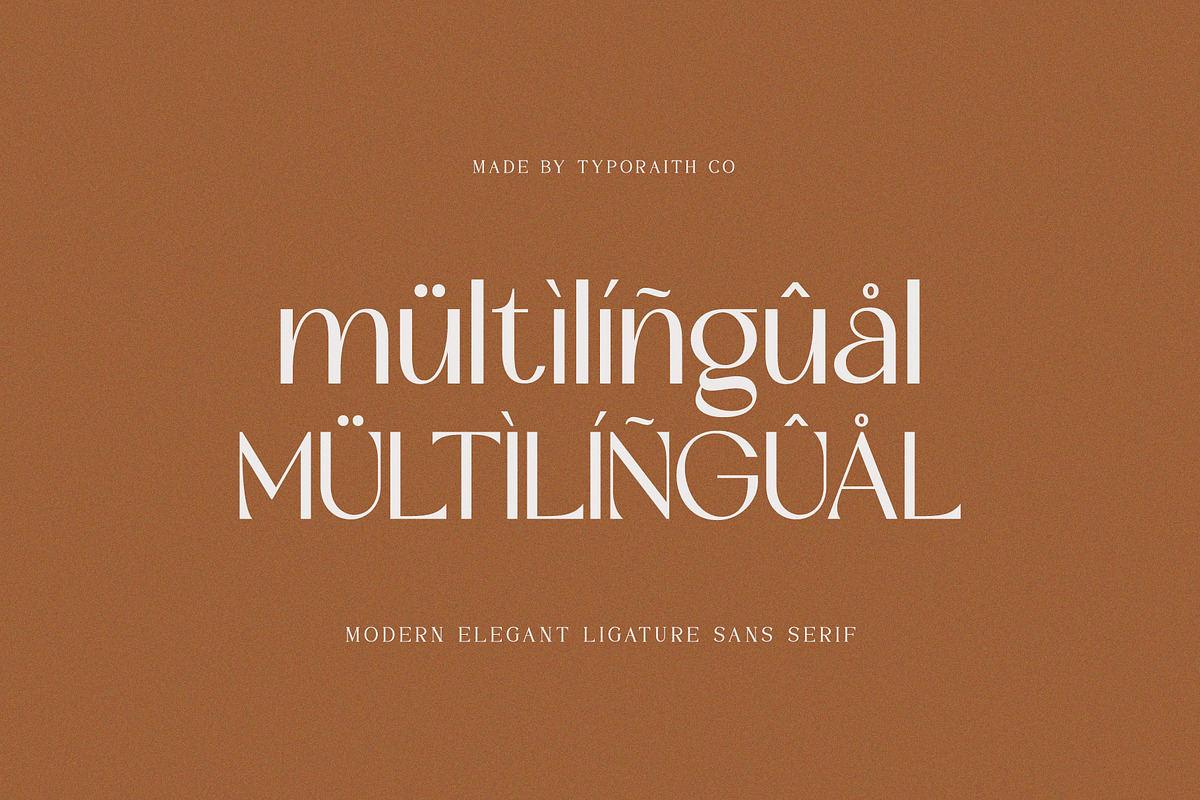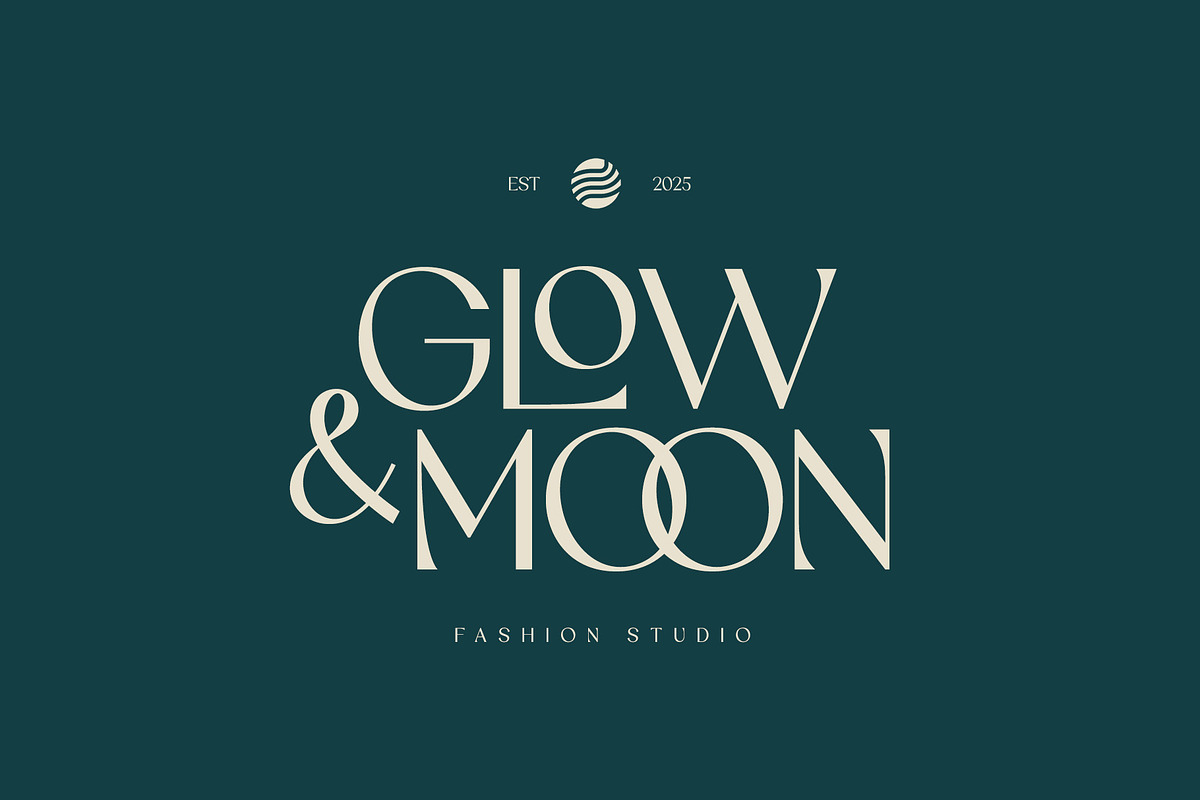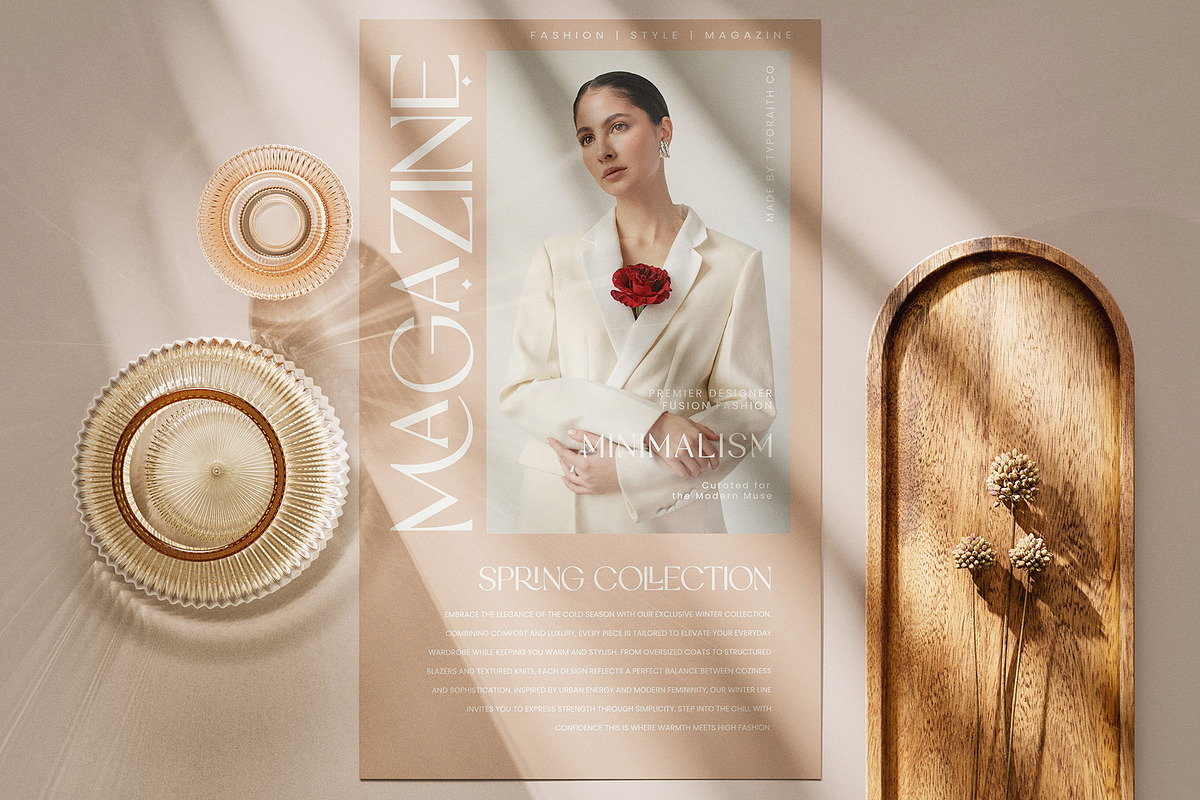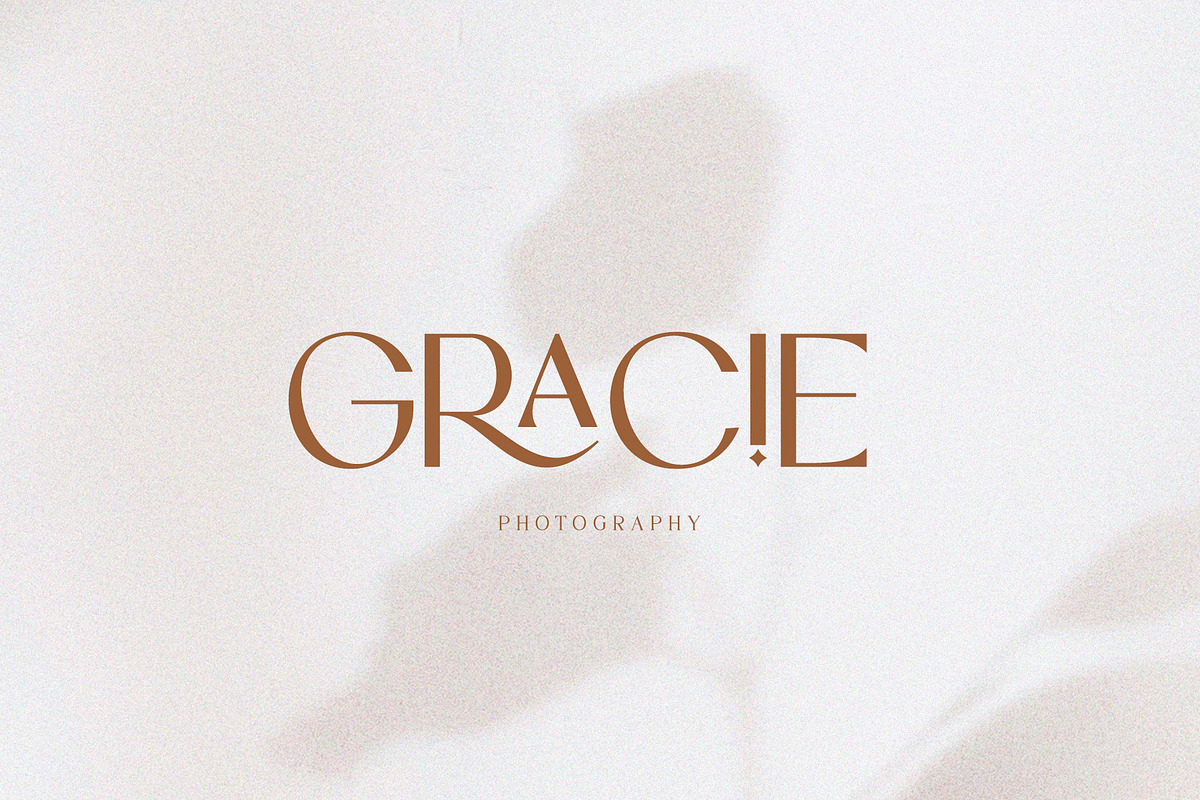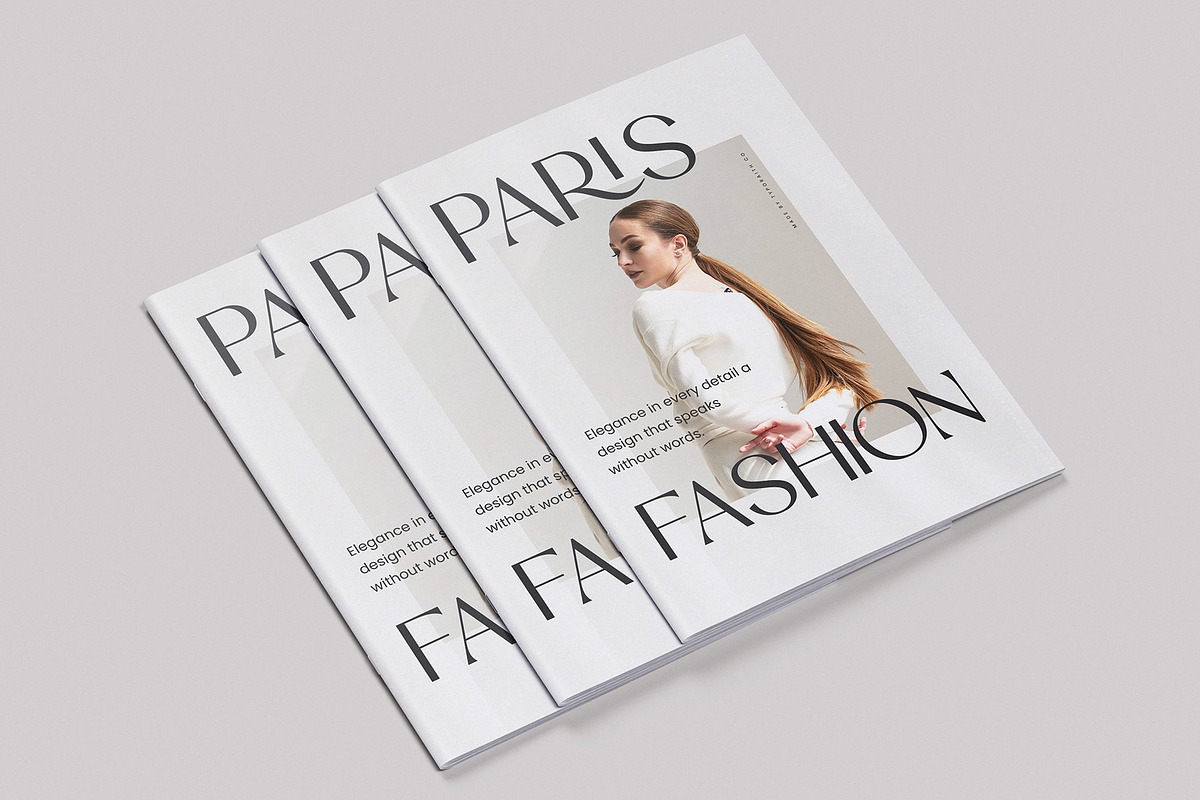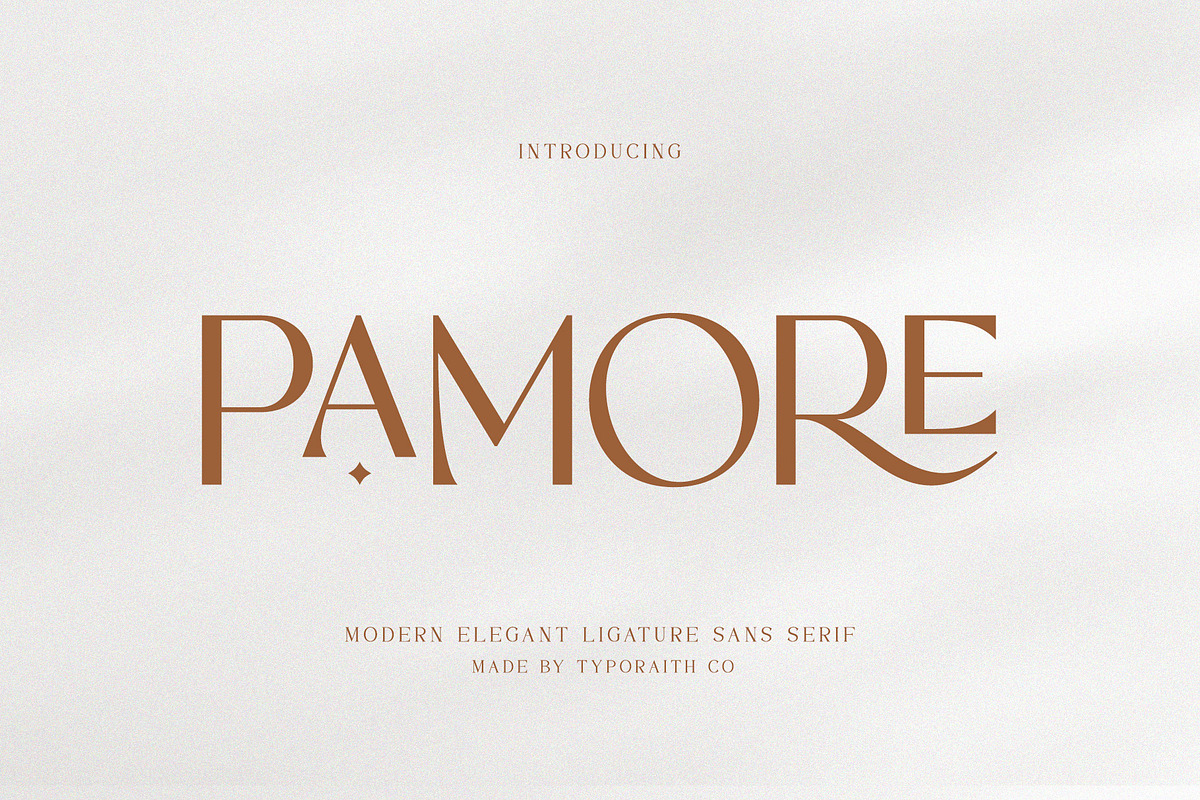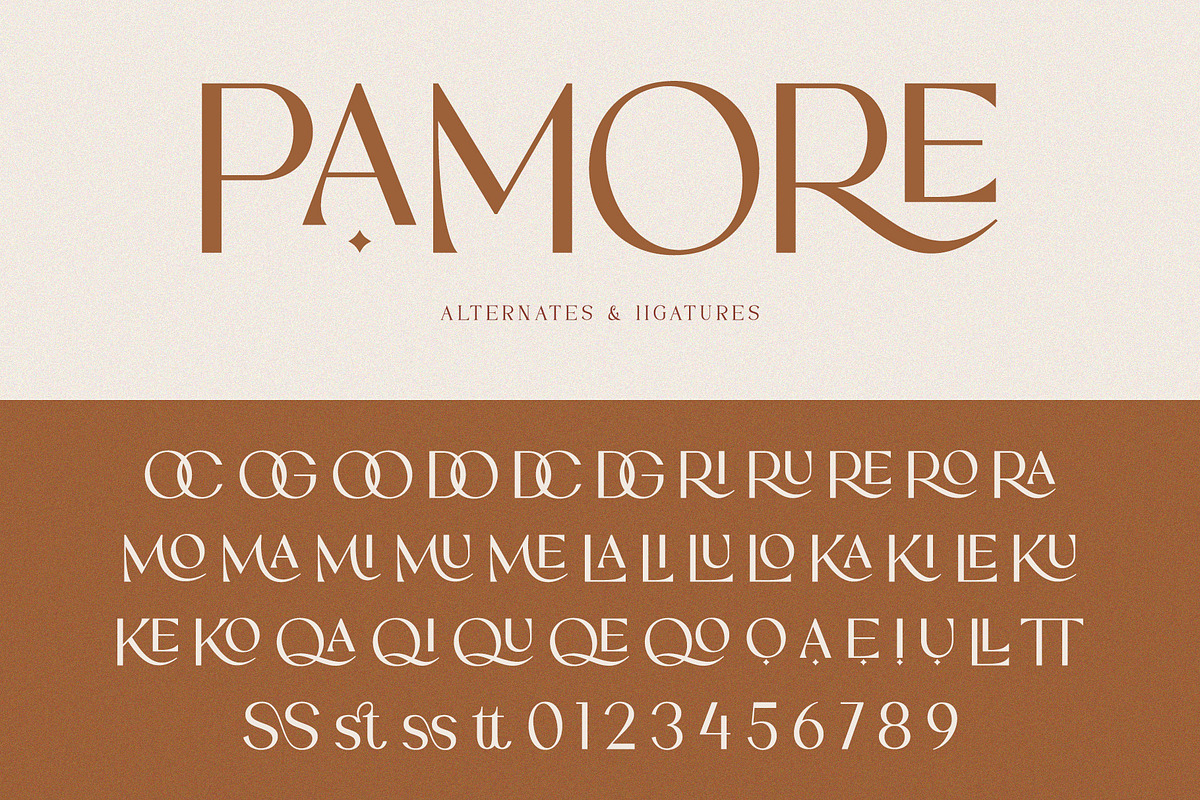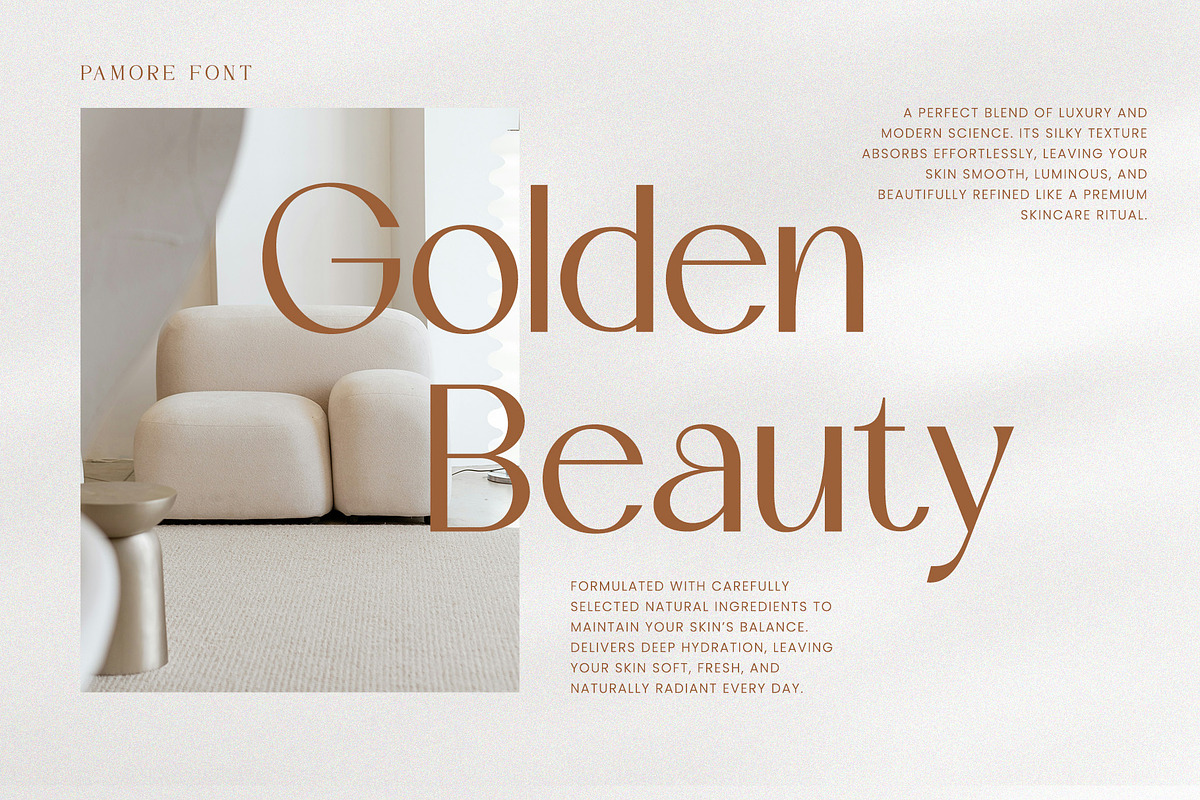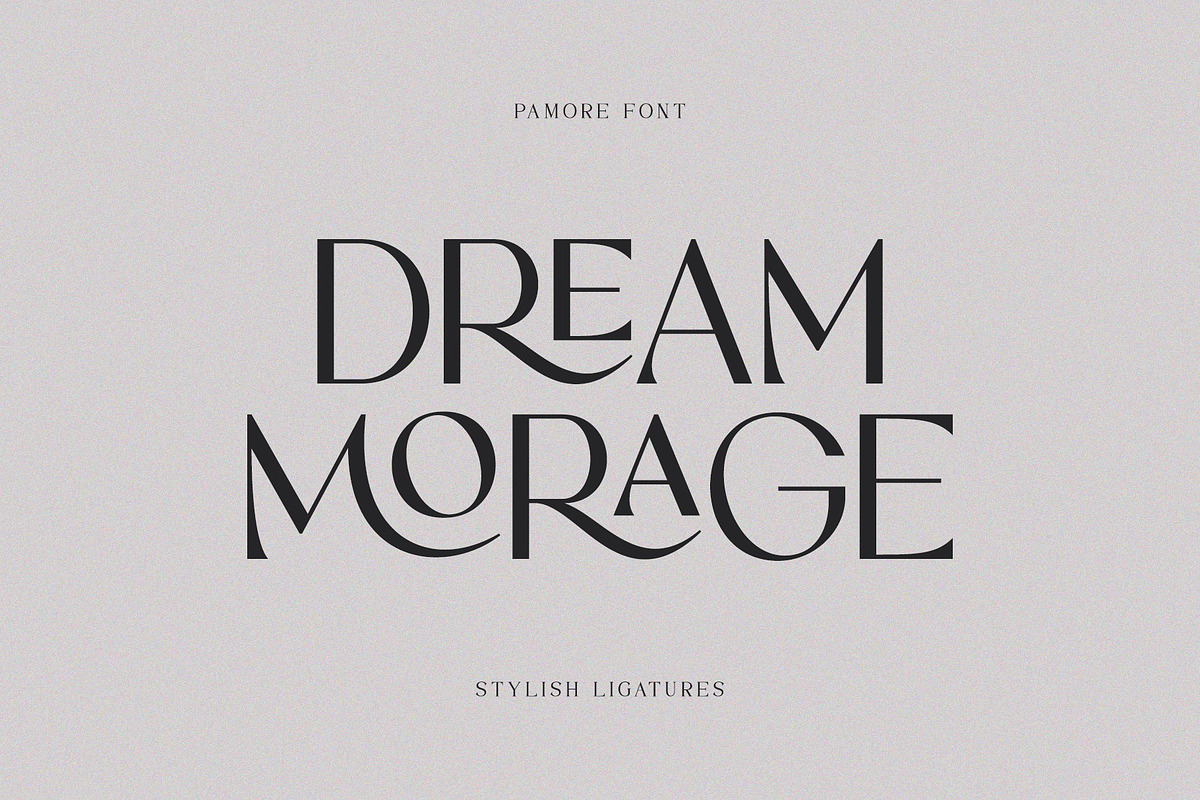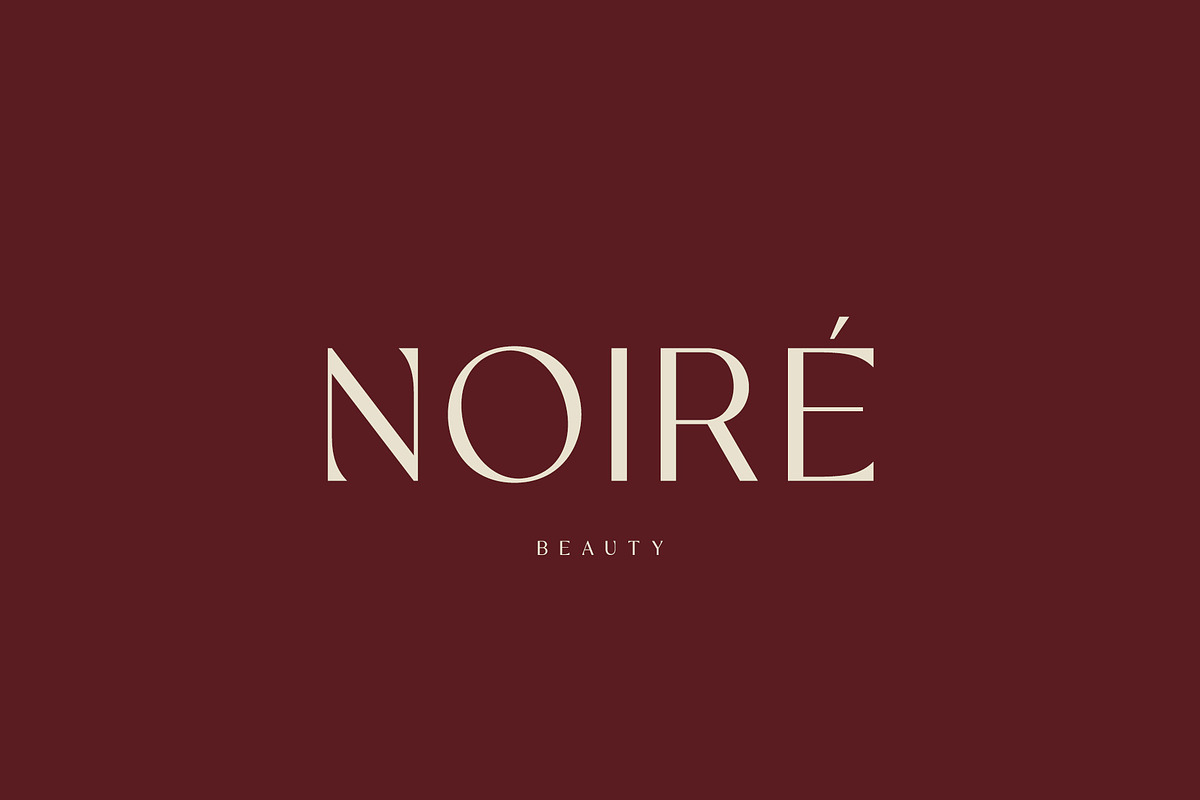
Pamore | Elegant Ligature Sans Serif
Pamore is a modern elegant ligature sans serif font designed to bring sophistication and timeless beauty to your projects. Its sleek letterforms, refined curves, and luxurious ligatures make it perfect for branding, editorial designs, fashion projects, and high-end logos. With its balance between minimalism and elegance, Pamore effortlessly elevates your typography and adds a sense of class to every design it touches.
Use Pamore for magazine titles, wedding invitations, packaging, web design, or luxury branding — and let your work exude grace and style.
Uppercase & lowercase letters
Stylish ligatures and alternates
Punctuation & multilingual support
Perfect for elegant & modern themes